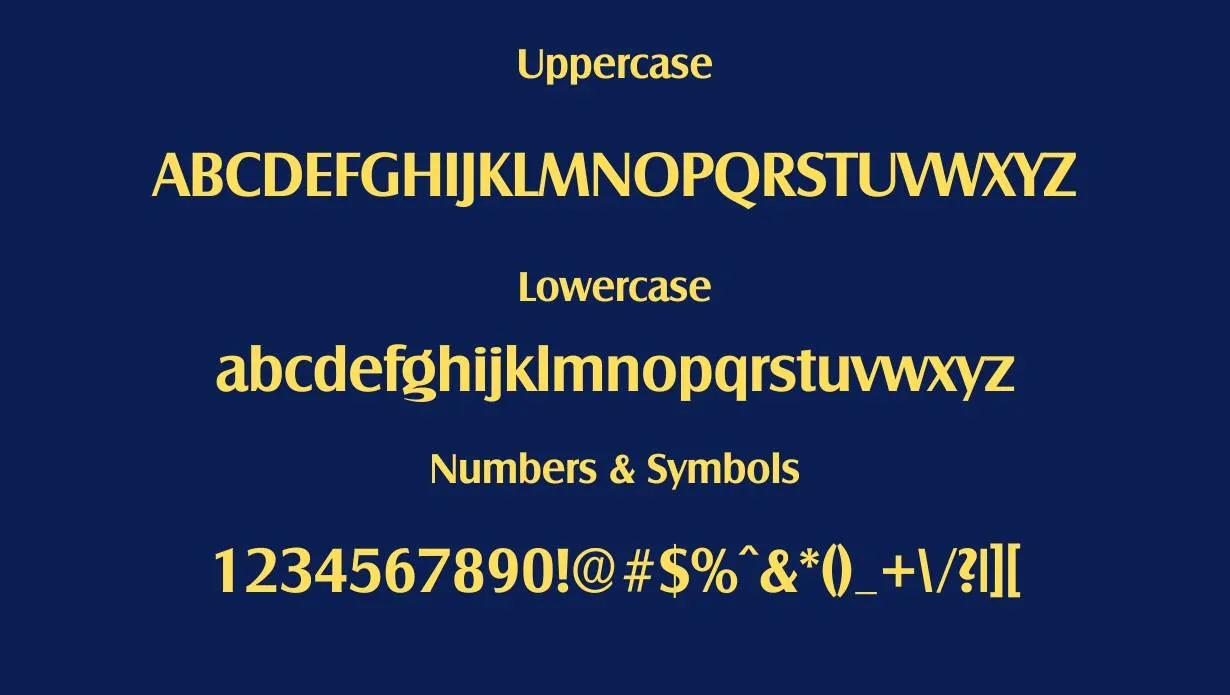
Add a touch of European elegance with Salzburg Serial Font. Its refined and classic letterforms bring a sense of sophistication to your words.
Whether you’re designing formal invitations or stylish branding, Salzburg Serial Font adds a touch of continental flair to your designs. Transform your design project into a captivating masterpiece by including this typeface. You can use theĀ SF diego sans font independently or harmoniously pair it with other fonts.